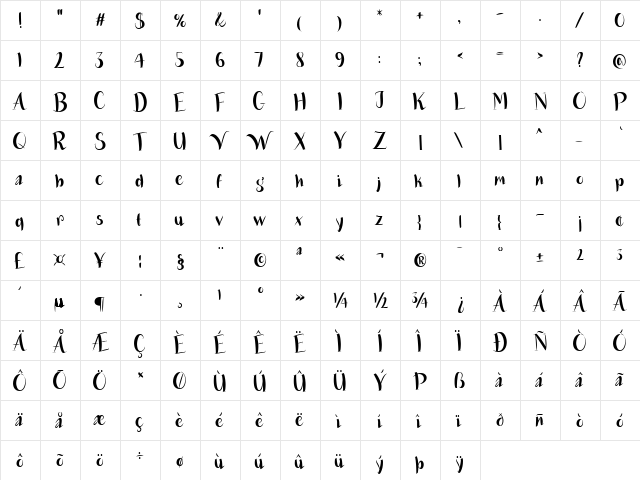
Vampire Bite Solid Regular
| Foundry | Misti's Fonts |
| Designer | Misti's Fonts |
Design Context for Vampire Bite Solid Typeface
Vampire Bite Solid is a composed and adaptable typeface that performs quietly and consistently across a wide range of design contexts.